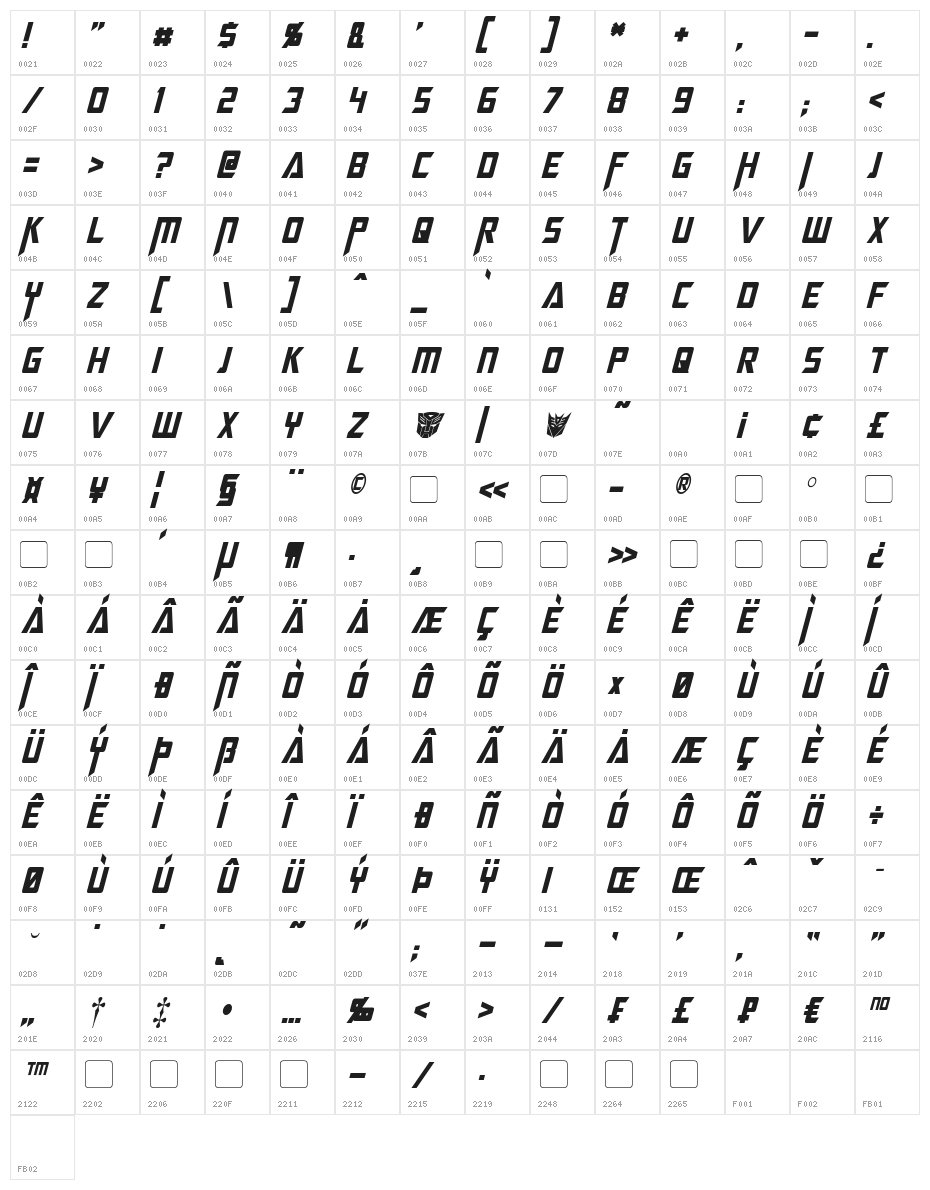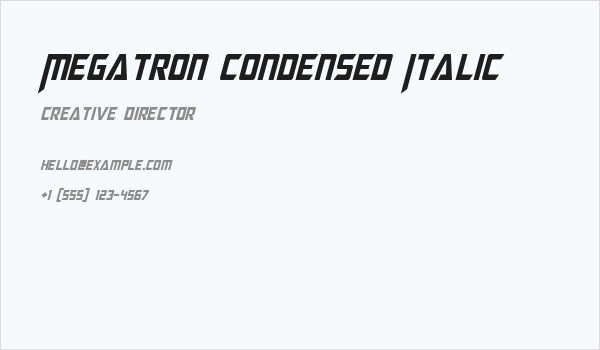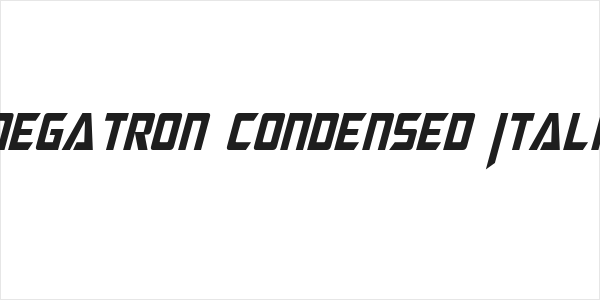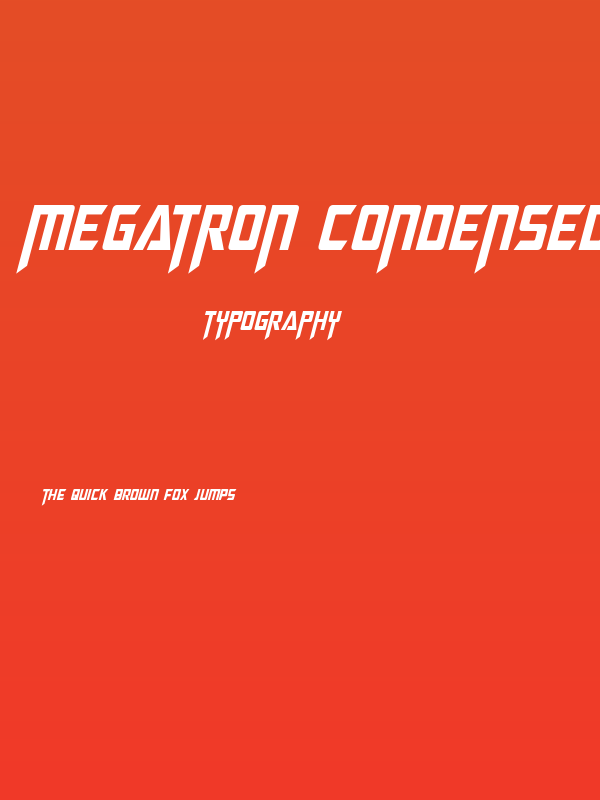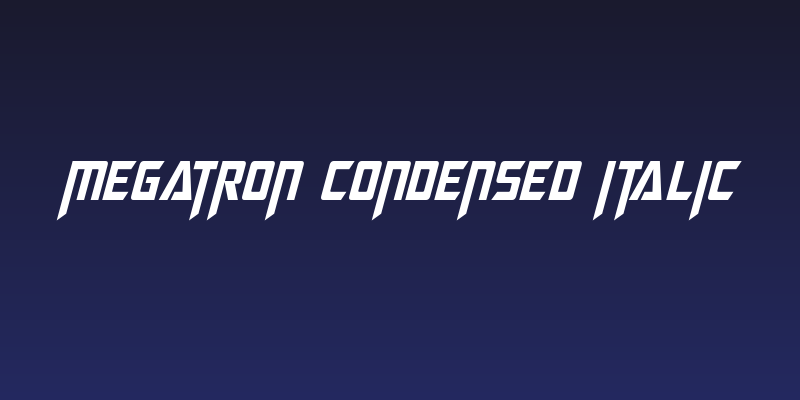
Megatron Condensed Italic Font
Megatron Condensed Italic Description
This font features a bold, futuristic design with sharp, angular lines and a condensed form. The italic style adds a dynamic, forward-leaning appearance, enhancing its modern and edgy aesthetic. The characters are tightly spaced, contributing to its compact look. The high contrast between thick and thin strokes gives it a striking presence, making it ideal for attention-grabbing headlines. Its geometric structure and sleek style make it suitable for projects that require a contemporary and innovative feel.
| Proposed Projects | Ideal for sci-fi themed designs, technology branding, video game titles, and dynamic posters. |